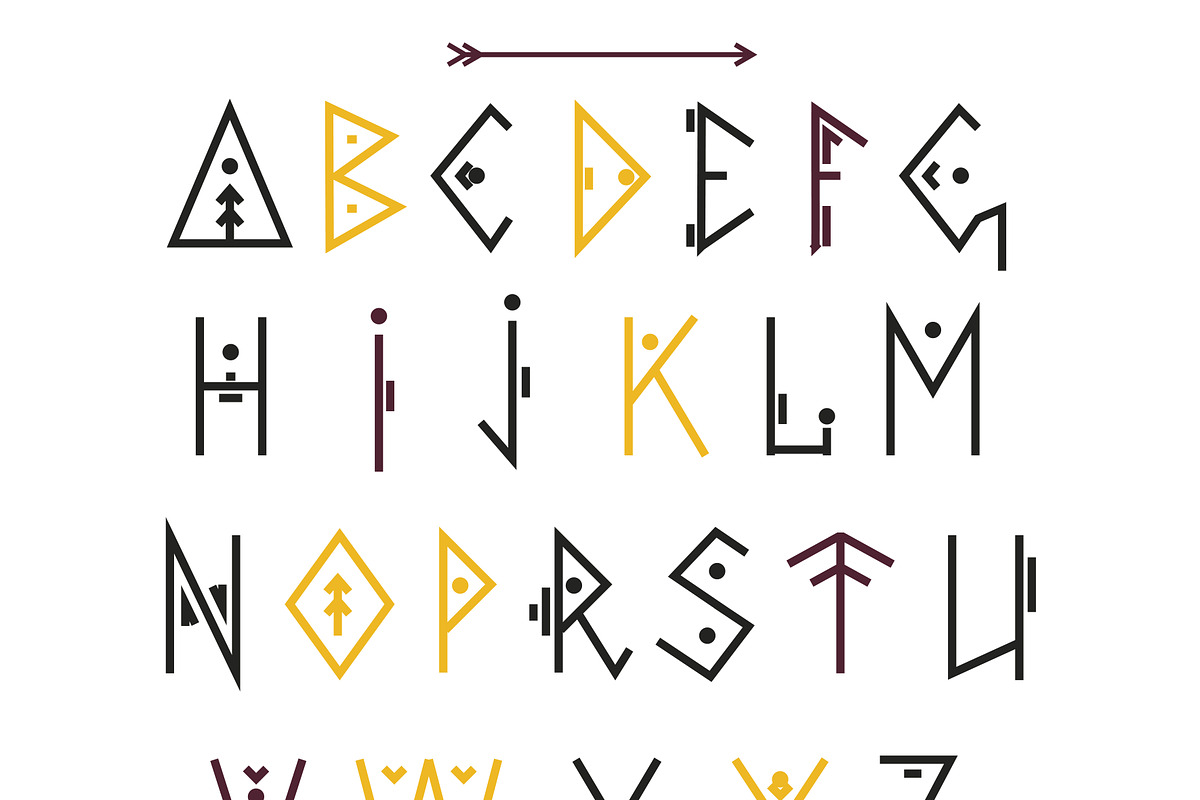
Vector Ethnic Font
Vector Ethnic Font by OliaGraphics is a font selected for branding, posters, packaging, typography.
Why Vector Ethnic Font is worth a look
Vector Ethnic Font by OliaGraphics fits naturally into Branding, posters, packaging, typography.